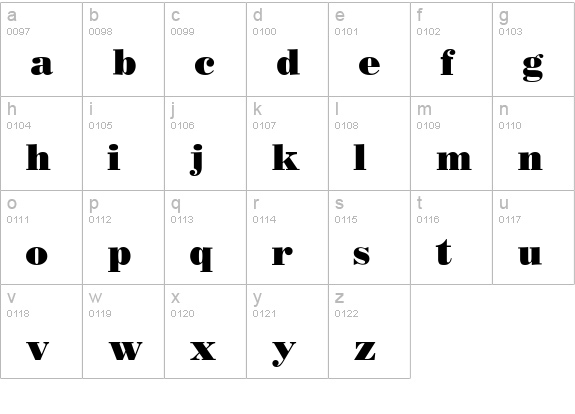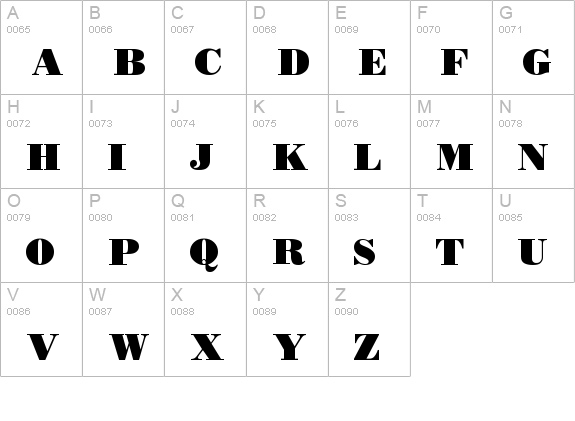
BODIDLYbold Font Details
BODIDLYbold font is a striking and modern typeface that exudes confidence and strength. Its bold and dynamic design makes it perfect for headlines, posters, and any project that demands attention. The clean lines and sharp edges of BODIDLYbold give it a sleek and professional look that will elevate your designs to the next level. One of the best things about BODIDLYbold font is that it is completely free to download at FontsMarket.com. This means you can add this powerful font to your collection without having to spend a dime. Whether you're a designer looking to make a statement or a creative individual wanting to spice up your projects, BODIDLYbold font is the perfect choice. Don't miss out on this opportunity to enhance your designs with the bold and impactful BODIDLYbold font. Download it for free today and start creating stunning visuals that will leave a lasting impression.